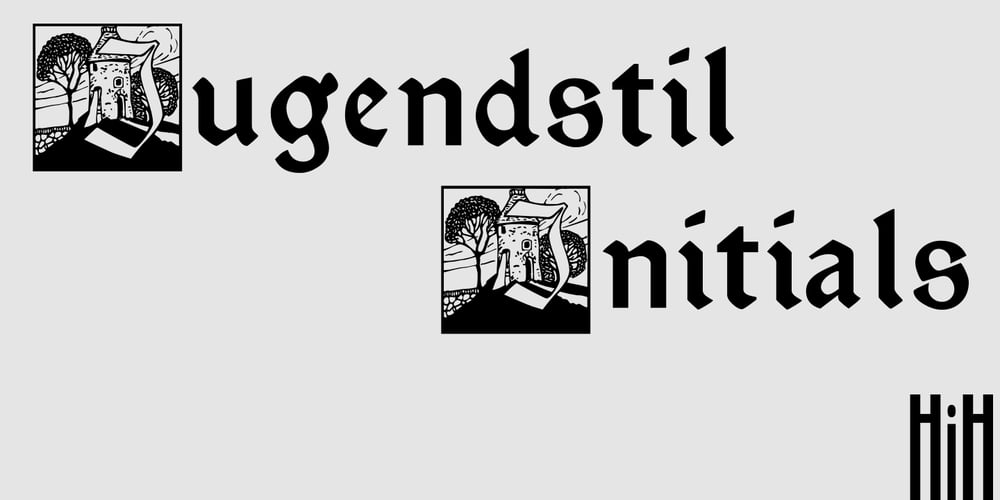
Jugendstil Initials
Jugendstil Initials font
Jugendstil Initials Font Family was designed by Heinrich Vogeler and published by HiH. Jugendstil Initials contains 1 styles and family package options. Jugendstil Initials were designed by Heinrich Vogeler around 1905, based on the German blackletter tradition. A similar set of initials by Vogeler, but based on roman letters was released by Rudhardsche Geisserei of Offenbach at about this time. I believe the originals were woodcuts. The backgrounds to the letterforms may be seen as examples of Heimatkunst, an art movement within Germany that drew deliberate inspiration from the rural countryside. Like the Arts and Crafts Movement in England a little earlier, Heimatkunst may be seen, in part, as a romantic rejection of urban industrialization, while at the same time representing a back-to-roots nationalism. Like any river, it was fed by many streams. Jugendstil Initials is an experiment with which I am most pleased. It is far and away the most complex font HiH has produced and I was uncertain whether or not it could be done successfully. To oversimplify, a font is produced by creating outlines of each character, using points along the outline to define the contour. A simple sans-serif letter A with crossbar can be created using as few as 10 points. We decided to make a comparison of the number of points we used to define the uppercase A in various fonts. Cori, Gaiety Girl and Page No 508 all use 12 points. Patent Reclame uses 39 and Publicity Headline uses 43. All the rest of the A’s, except the decorative initials, fall somewhere in between. The initial letters run from 48 points for Schnorr Initials to 255 for Morris Initials Two, with 150 being about average. Then there is a jump to 418 points for Morris Initials One and, finally, to 1626 points for Jugendstil Initials. And this was only after we selectively simplified the designs so our font creation software (Fontographer) could render them. The average was 1678, not including X and Y. There was no X and Y in the original design and we have provided simple stand-ins to fill out the alphabet, without trying to imitate the style of the orginal design. We did a lot of looking to find a compatible lower case. We decided that Morris Gothic from the same period was the best match in color, design and historical context. We felt so strongly about the choice that we decided to produce our Morris Gothic font for the purpose of providing a lower case for Jugendstil Initials. The long s, as well as the ligatures ch and ck are provided. at 181, 123 (leftbrace) and 125 (rightbrace) respectively. This font was a lot of work, but I think it was worth it. I hope you agree.